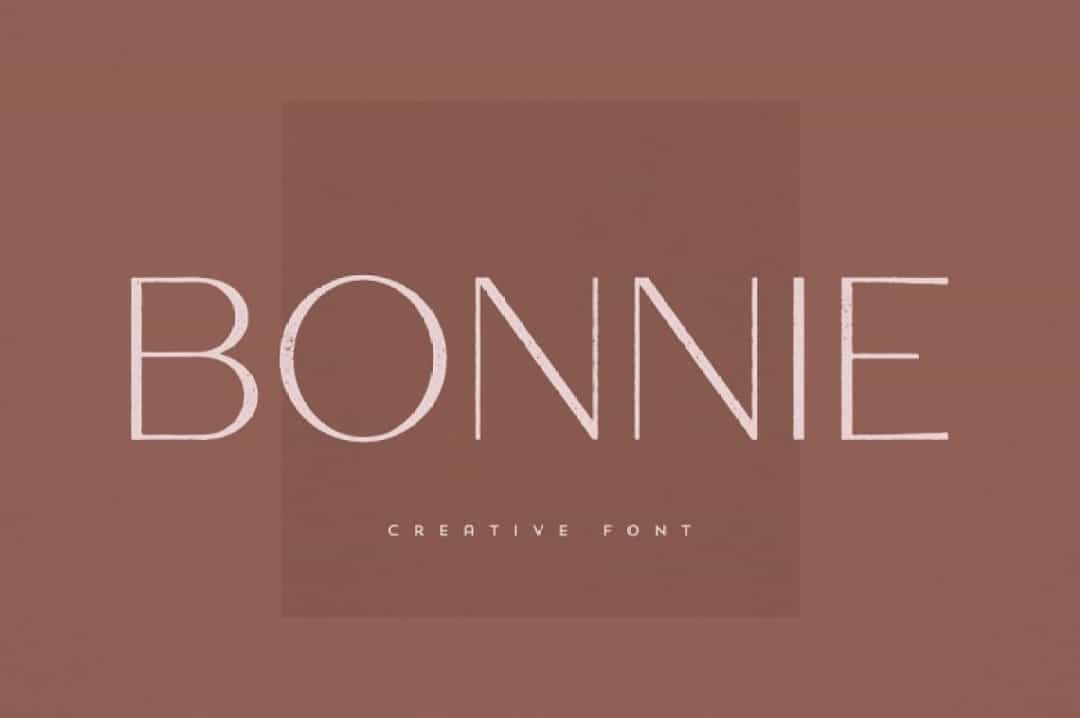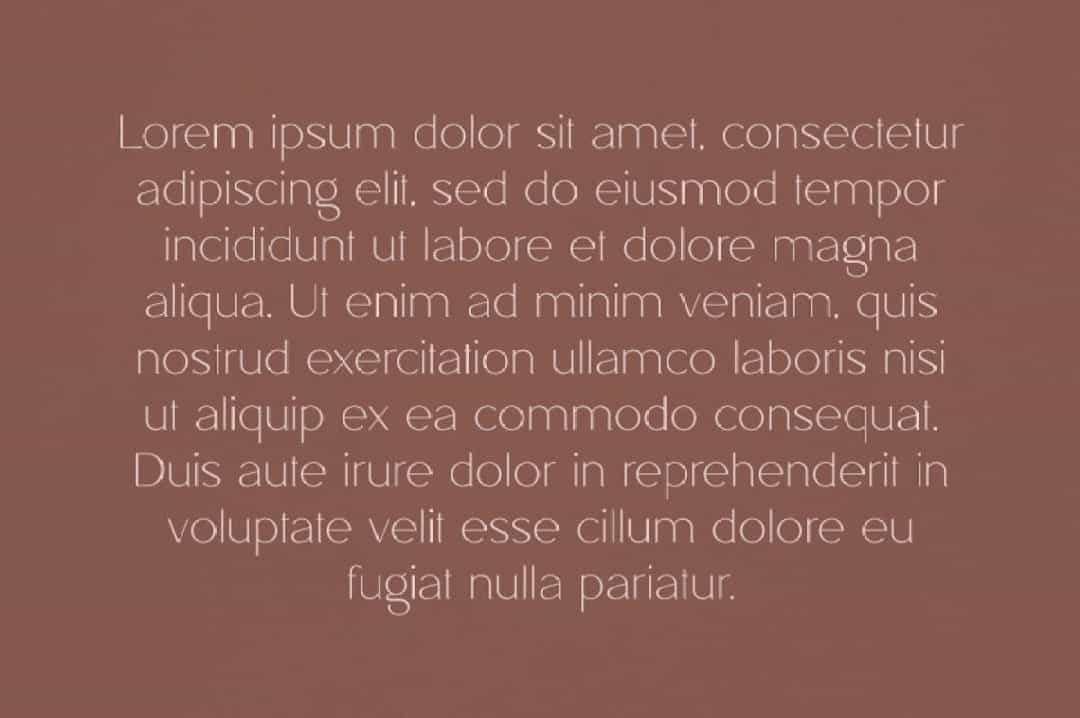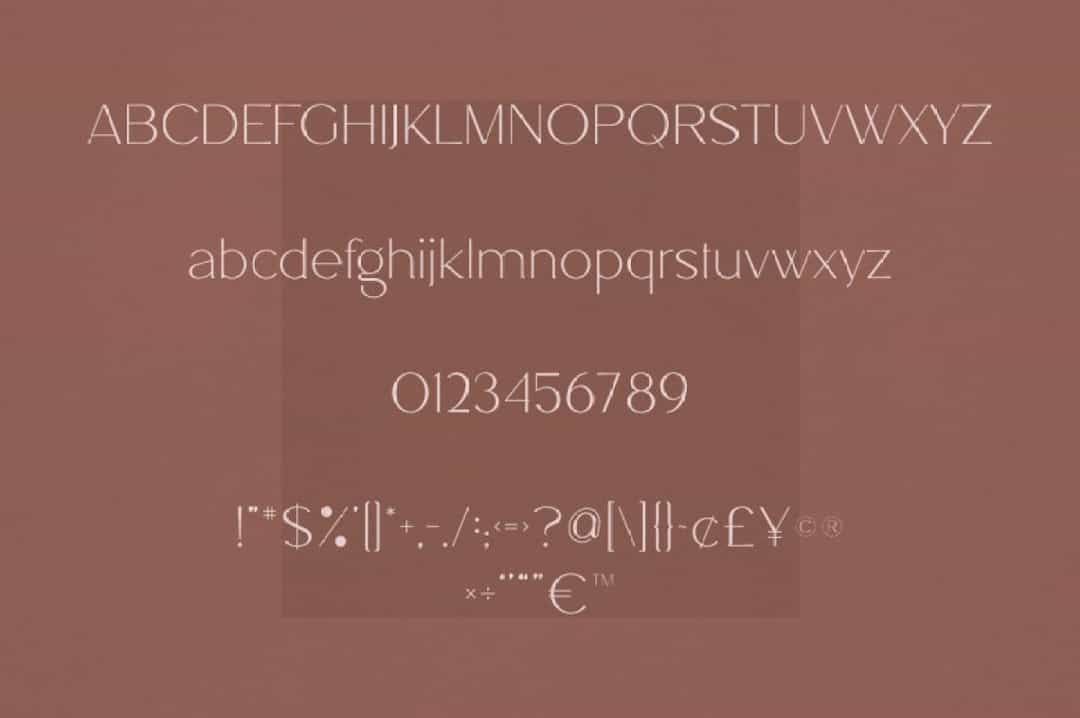
Bonnie is an elegant and adaptable sans serif font which creates a memorable typographic style! Perfect for headings, logos, branding or even plain text!